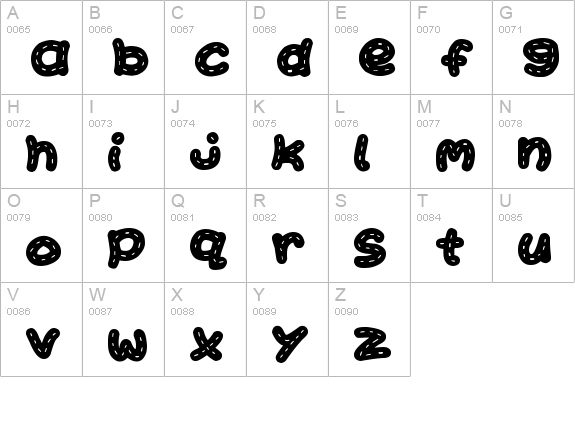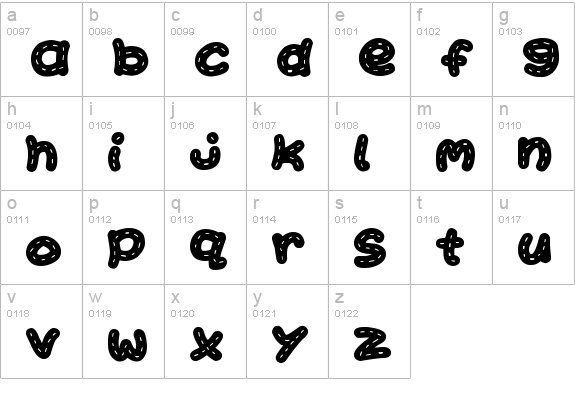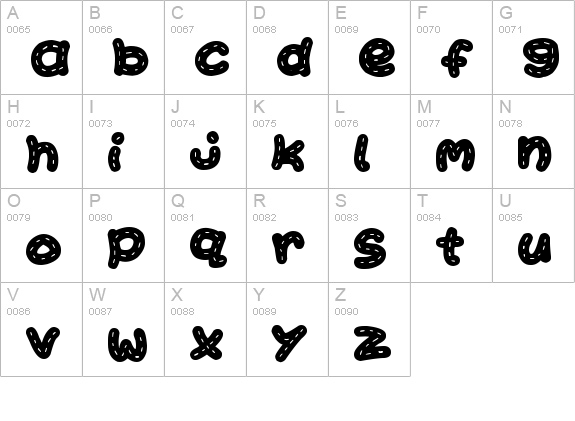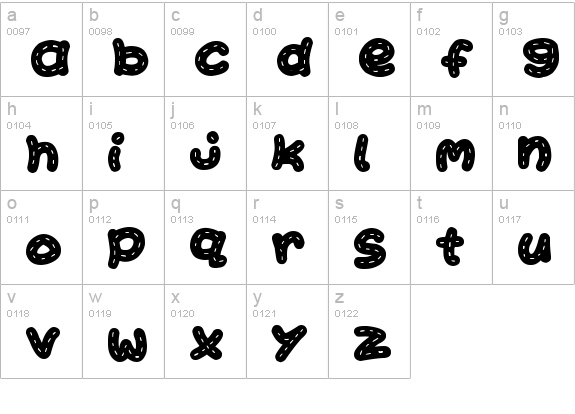
Kawai Stitch is a donationware font in the Fancy > Comic category, designed by Darrell Flood. It has been downloaded 63 times and is available for Windows, Mac and Linux.
The Kawai Stitch font is a charming and playful typeface that will bring a touch of whimsy to your designs. Inspired by cute and kawaii aesthetics, this font features adorable stitched details that add a unique handmade feel to your projects. With its rounded edges and friendly appearance, Kawai Stitch is perfect for adding a fun and lighthearted touch to greeting cards, posters, logos, and more.